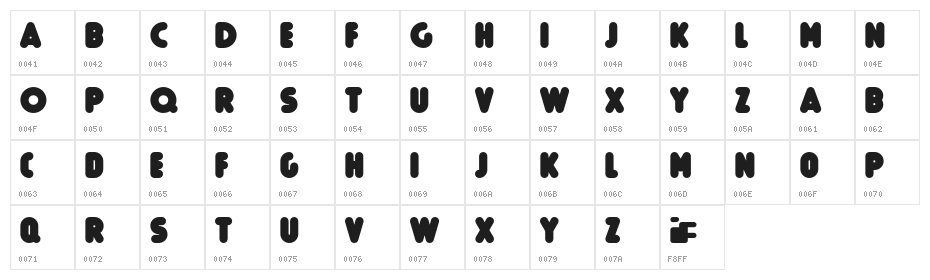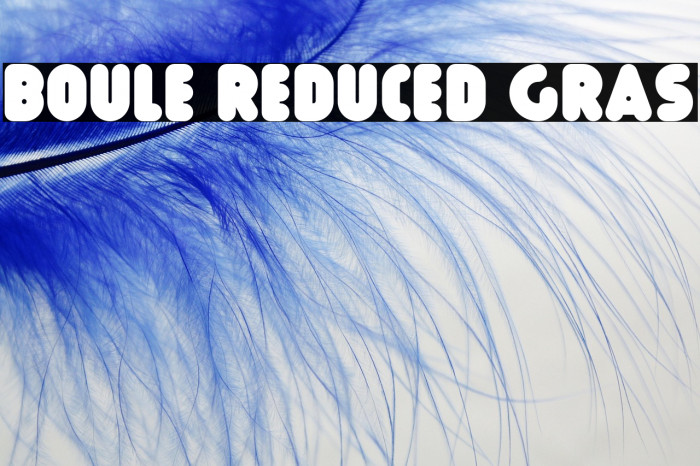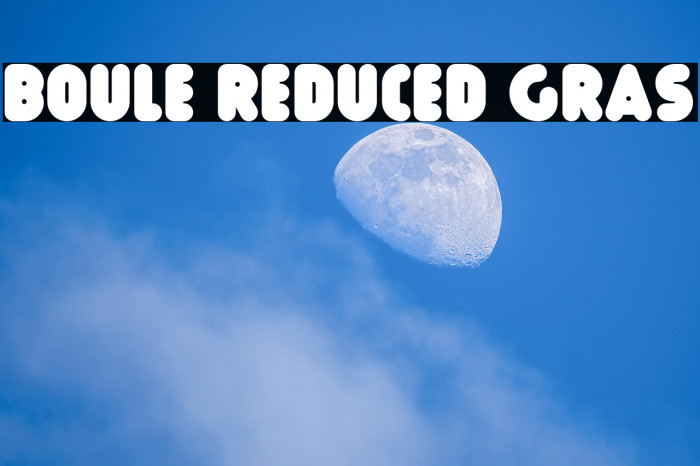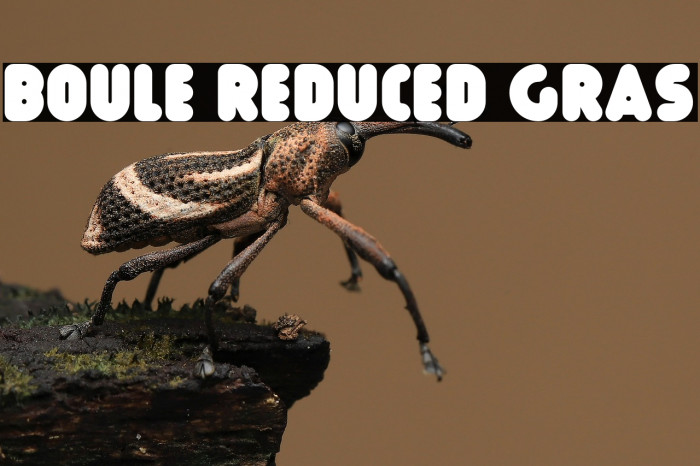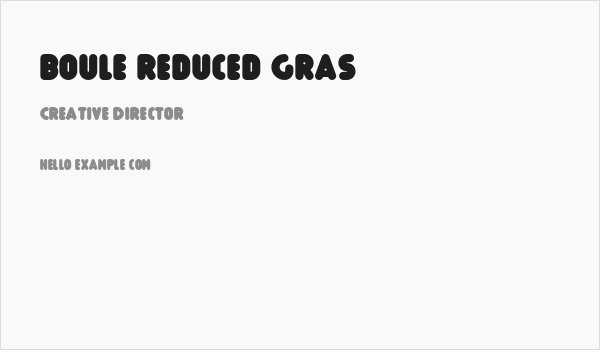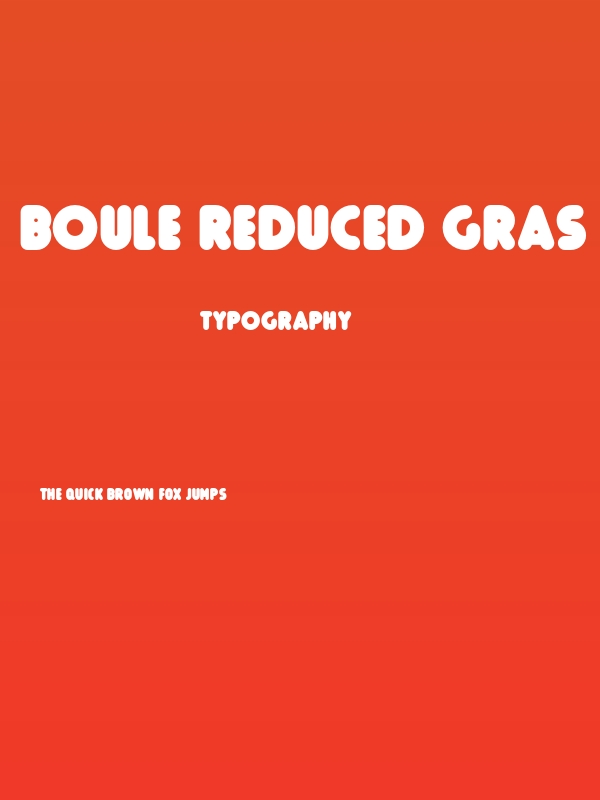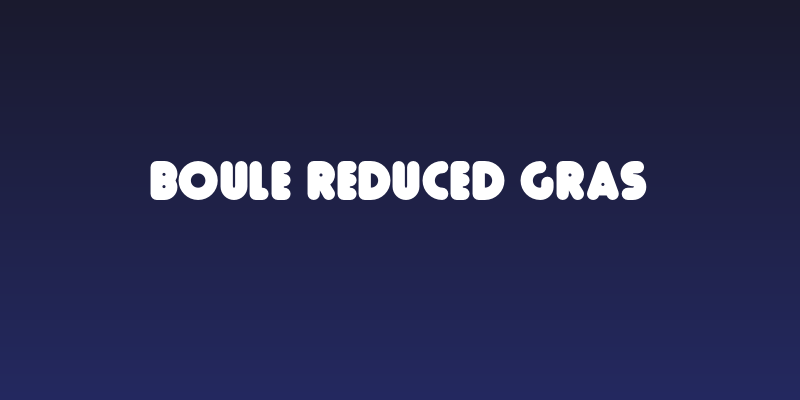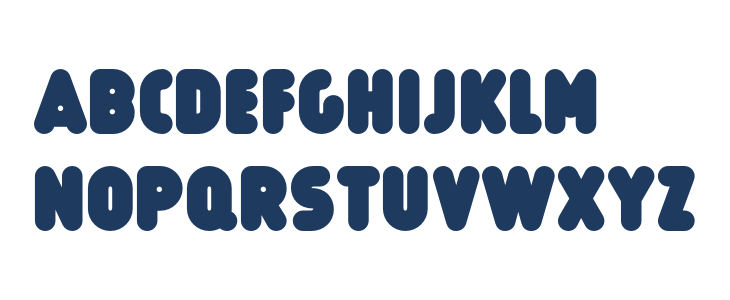
Boule Reduced Gras Font
Boule Reduced Gras Description
This font features bold, rounded characters with a playful and friendly appearance. The letters are uniformly thick, creating a strong visual impact. The rounded edges and consistent stroke width give it a soft, approachable feel, making it ideal for designs that require a touch of whimsy and warmth. The font maintains a consistent height across all characters, ensuring readability and balance. Its boldness and rounded style make it suitable for attention-grabbing headlines and playful branding projects.
| Overall Style | Playful, Friendly, Bold |
| Proposed Projects | Ideal for children's books, playful branding, posters, and headlines that need a friendly touch. |